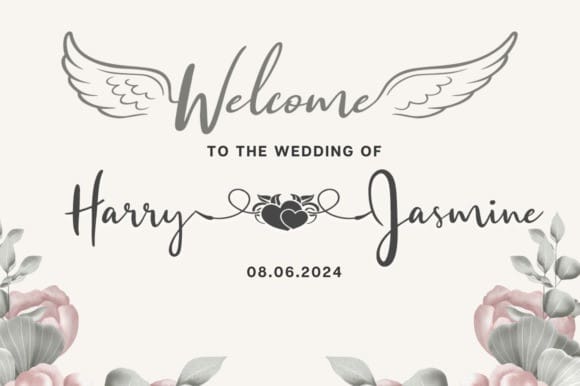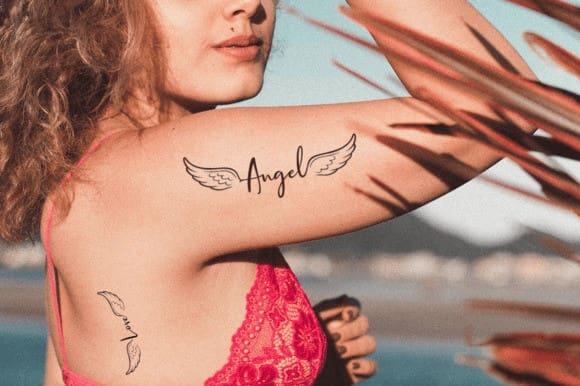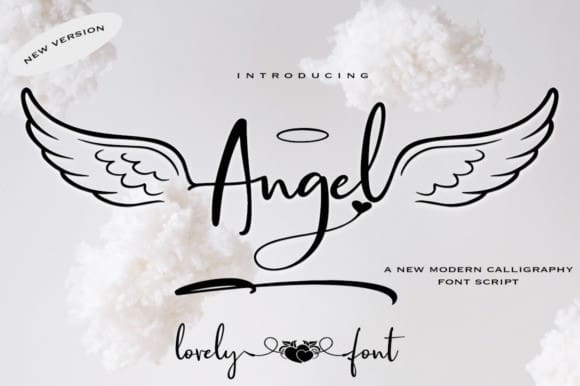
Angel Script Font
Angel Script Font is a modern calligraphy design, including Regular. This font is casual and beautiful with swash. Can be used for various purposes. such as logos, product packaging, wedding invitations, branding, headlines, signage, labels, signatures, book covers, posters, quotes, and more.